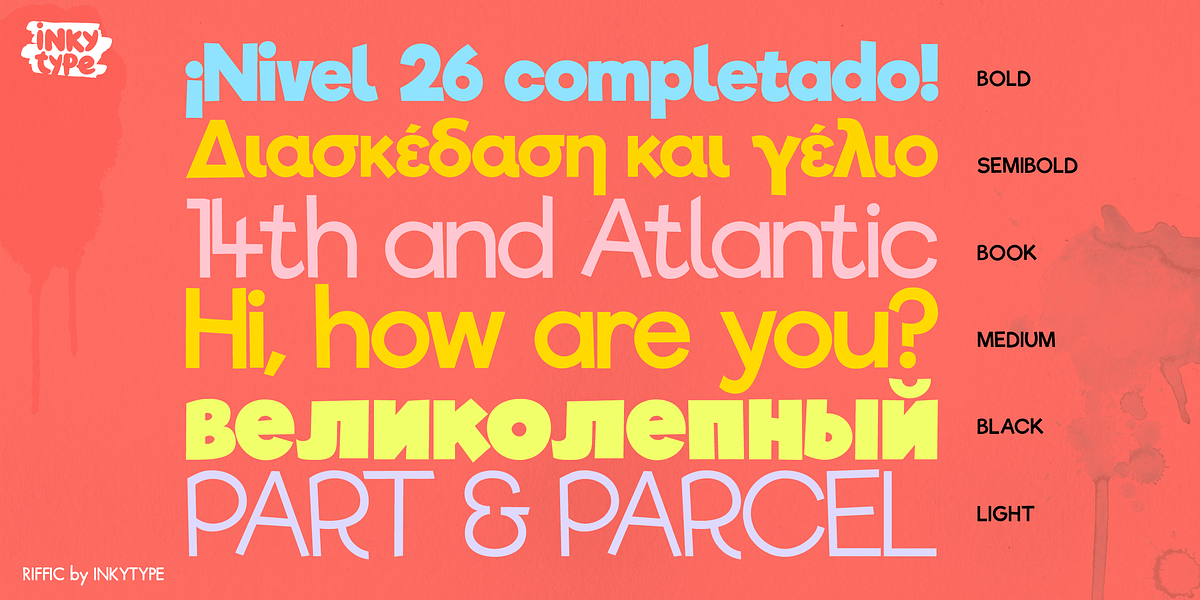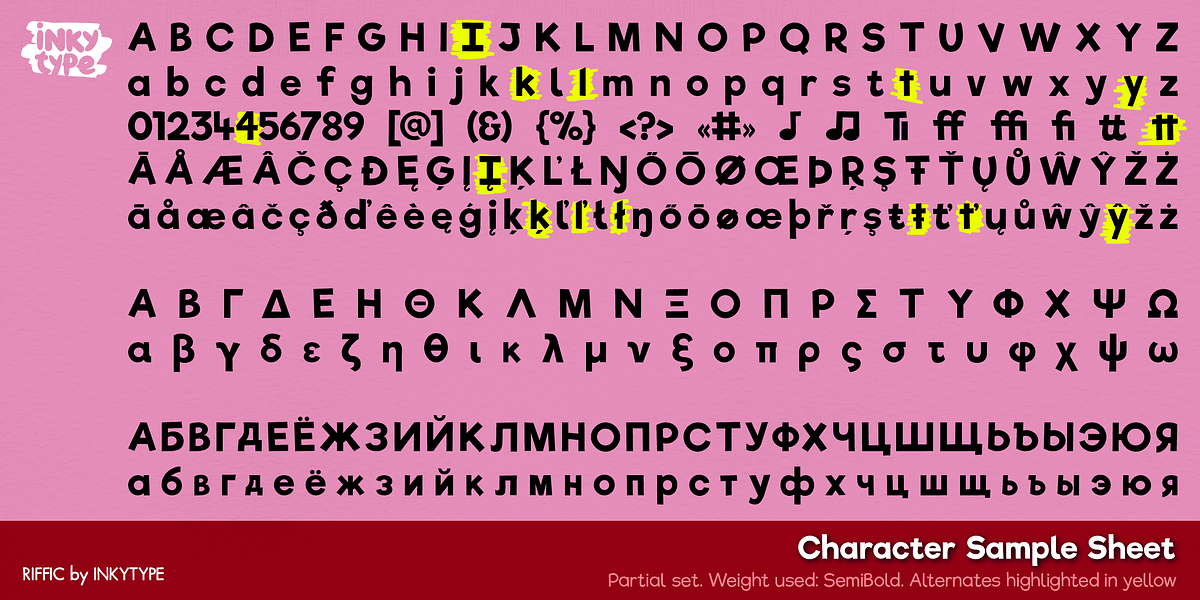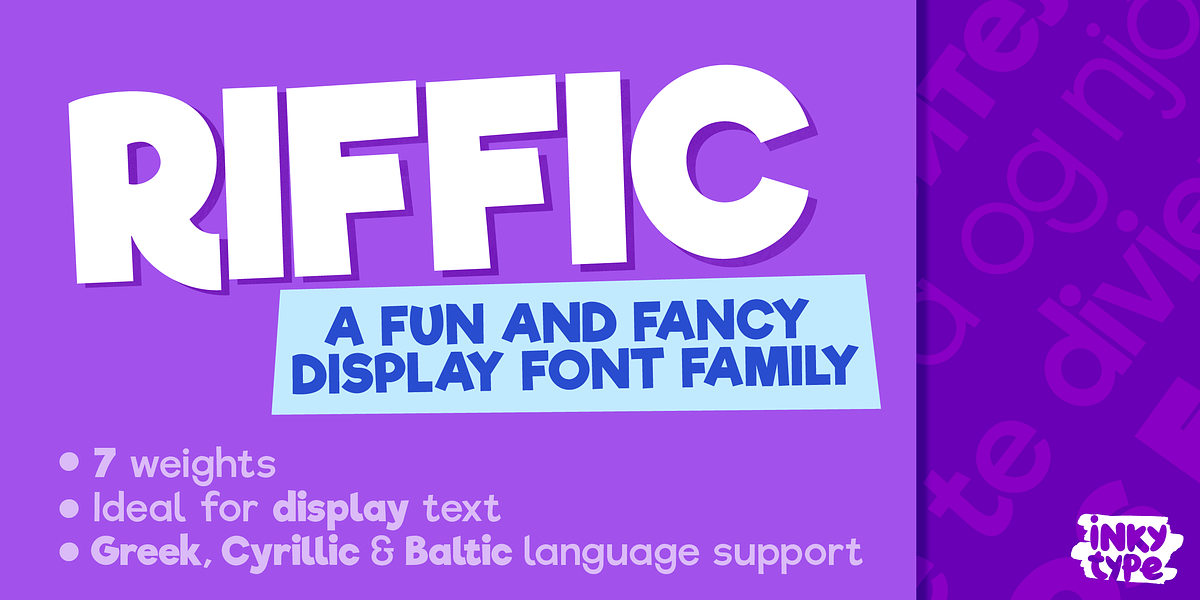
Riffic
Riffic is a playful and adventurous hand-drawn sans serif font family. Its uneven strokes give it a charming handmade quality, making it ideal for projects needing a touch of whimsy. While best suited for display use in large sizes, Riffic can also be used effectively for body text. The font includes support for Cyrillic and Greek languages and features OpenType functionalities like alternates and fractional numbers, adding versatility to its design.